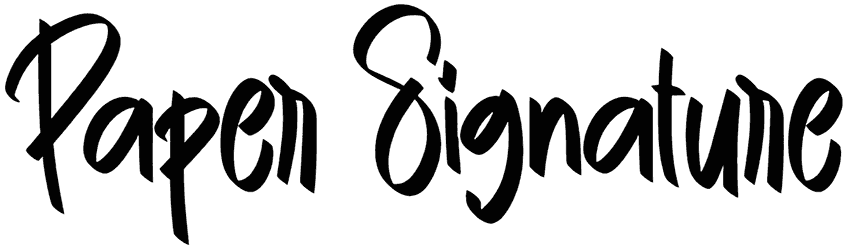
Paper Signature Font
Paper Signature is a wonderful script font that is suitable for several situations. This handwritten font has a playful design, and you may use it for prints on T-shirts, postcards, and book covers.